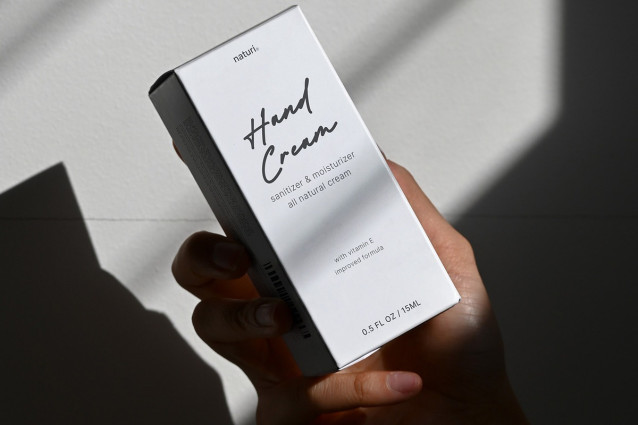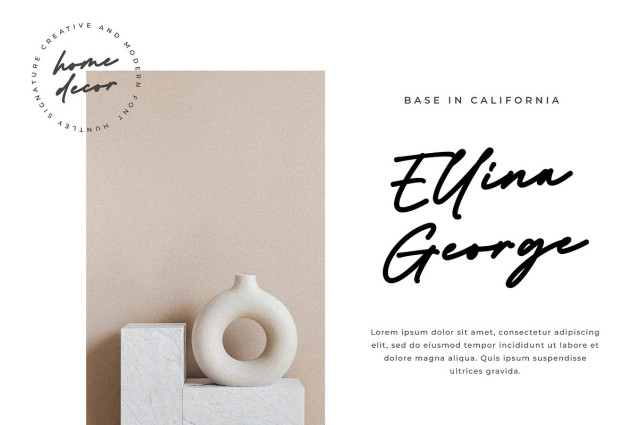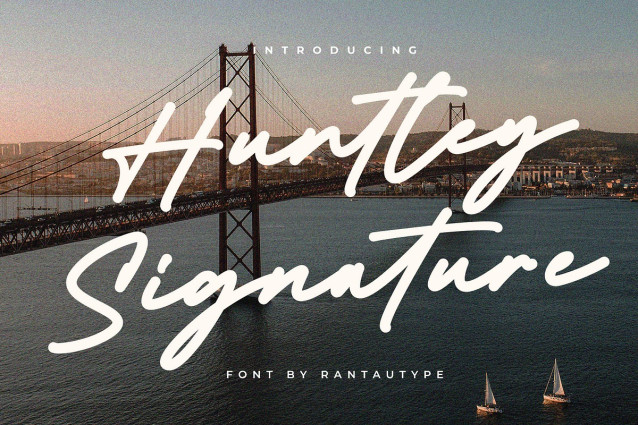
Huntley Signature Script Font
Huntley Signature Script Font – is the great choice for watermark on photography, branding, wedding event, signature or signature logo design, quotes, album cover, magazine, business card and many other design project. Huntley Signature here to make your work to high level!!!